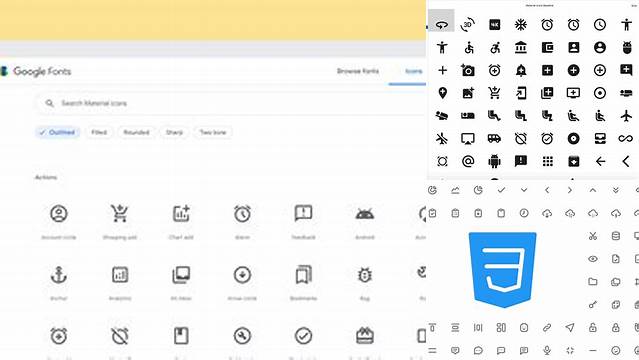
Google Fonts & Material Icons: A Web Design Guide
Hey guys! Ever wondered how to make your website look super professional and sleek without breaking the bank? Well, one of the best-kept secrets is using Google Fonts and Material Icons. These tools are like the secret sauce to web design, adding that extra oomph to your projects. In this article, we're diving deep into the world of Google Fonts, focusing on the fonts.googleapis.com CSS family and how to seamlessly integrate Material Icons. Trust me, by the end of this read, you'll be a pro at making your website typography and icons pop! Let's explore the magic behind Google Fonts CSS family and Material Icons, and how they can transform your website's aesthetic appeal. We'll start with the basics, and then move on to more advanced techniques, ensuring you have a comprehensive understanding. So, grab a cup of coffee, and let's get started!
Understanding Google Fonts
What are Google Fonts?
So, what exactly are Google Fonts? Imagine having access to a massive library of beautifully designed fonts, all available for free! That's Google Fonts in a nutshell. These fonts are hosted on Google's servers and can be easily linked to your website using a simple line of code. No more boring default fonts; you can now choose from a vast selection to perfectly match your brand's personality. The best part? They're open source, which means they're free to use for both personal and commercial projects. Think of it like having a designer's toolkit at your fingertips, without the hefty price tag. Using Google Fonts not only enhances the visual appeal of your website but also ensures consistency across different browsers and devices. The wide variety of styles, from classic serifs to modern sans-serifs, allows you to find the perfect match for your brand's identity. By leveraging Google's global network, these fonts load quickly and efficiently, ensuring a smooth user experience. Plus, the ease of integration means you can start using them in your projects within minutes, making your website stand out from the crowd.
Why Use Google Fonts?
Now, you might be thinking, "Why should I bother with Google Fonts when I already have some fonts on my computer?" Great question! First off, Google Fonts are web-optimized, meaning they load super fast on your site, keeping your visitors happy. Speed is crucial, especially in today's fast-paced online world. Nobody likes a slow-loading website, and using optimized fonts can make a significant difference. Secondly, they offer a huge range of styles, so you're sure to find something that fits your vibe. Whether you're going for a sleek, modern look or a more classic, elegant feel, Google Fonts has got you covered. Think of it as having a font buffet where you can pick and choose whatever suits your taste. Furthermore, Google Fonts are consistent across all browsers and devices, ensuring a uniform look and feel for your website, regardless of how your visitors are accessing it. This cross-platform compatibility is a huge advantage, as it eliminates the headache of dealing with font rendering issues. Another compelling reason to use Google Fonts is the ease of updating your website's typography. If you ever decide to refresh your brand or switch up the design, changing fonts is as simple as updating a link in your code. This flexibility makes it incredibly convenient to keep your website looking fresh and modern.
The fonts.googleapis.com CSS Family
Okay, let's get a little techy. The magic happens with the fonts.googleapis.com CSS family. This is the URL you'll use to link Google Fonts to your website. It's like the secret doorway to all those amazing fonts. When you add this link to your HTML, your browser knows to fetch the font files from Google's servers. This approach ensures that your website always uses the latest versions of the fonts, without you having to manually update anything. Think of it as having a personal font delivery service that takes care of all the technical details for you. The fonts.googleapis.com CSS family is a robust and efficient way to serve fonts, ensuring optimal loading times and performance. This is because Google's servers are designed to handle large amounts of traffic, and they use advanced caching techniques to deliver fonts quickly. Furthermore, this method allows for easy font management and organization. By specifying the fonts you need in the CSS link, you can keep your website's code clean and maintainable. This also makes it simpler to experiment with different font combinations and see how they look on your site. In essence, the fonts.googleapis.com CSS family is the key to unlocking a world of typographic possibilities, giving you the tools to create a visually stunning website.
Integrating Material Icons
What are Material Icons?
Now, let's talk icons! Material Icons are a set of beautifully crafted icons designed by Google. They're clean, simple, and perfect for any website or app. Think of them as the visual spice that adds flavor to your design. These icons are designed with clarity and consistency in mind, making them easy to recognize and use in various contexts. Whether you need icons for navigation, actions, or categories, Material Icons has a wide range to choose from. The icons are available in multiple formats, including SVG and PNG, giving you the flexibility to use them in different ways. They're also designed to scale well, so they look crisp and clear on any screen size. This is crucial for ensuring a consistent user experience across different devices. Using Material Icons not only enhances the visual appeal of your website but also improves usability. Icons can help users quickly understand the function of different elements on your page, making navigation more intuitive. Plus, they add a professional touch that can elevate the overall design of your site. In short, Material Icons are a valuable asset for any web developer or designer looking to create a polished and user-friendly interface.
Why Use Material Icons?
Why should you use Material Icons instead of just any old icons? Well, for starters, they're designed to be super clear and recognizable, making your website easier to navigate. Imagine trying to find a specific button on a website filled with confusing, poorly designed icons – frustrating, right? Material Icons solve that problem by providing a consistent and intuitive visual language. Think of them as the road signs of your website, guiding users effortlessly through the content. Secondly, they're incredibly versatile. Whether you need icons for a minimalist design or a more complex layout, Material Icons can fit seamlessly into your style. They're designed to be neutral and adaptable, making them suitable for a wide range of applications. Furthermore, Material Icons are optimized for the web, ensuring they load quickly and don't slow down your site's performance. This is a crucial factor in providing a smooth user experience. No one wants to wait for icons to load, especially on mobile devices. Another key advantage of using Material Icons is their scalability. They're designed as vector graphics, which means they can be scaled up or down without losing quality. This ensures that your icons look sharp and clear on any screen, from smartphones to large desktop monitors. In addition, Material Icons are open source, which means they're free to use in both personal and commercial projects. This makes them an accessible and cost-effective solution for enhancing your website's design.
Adding Material Icons to Your Website